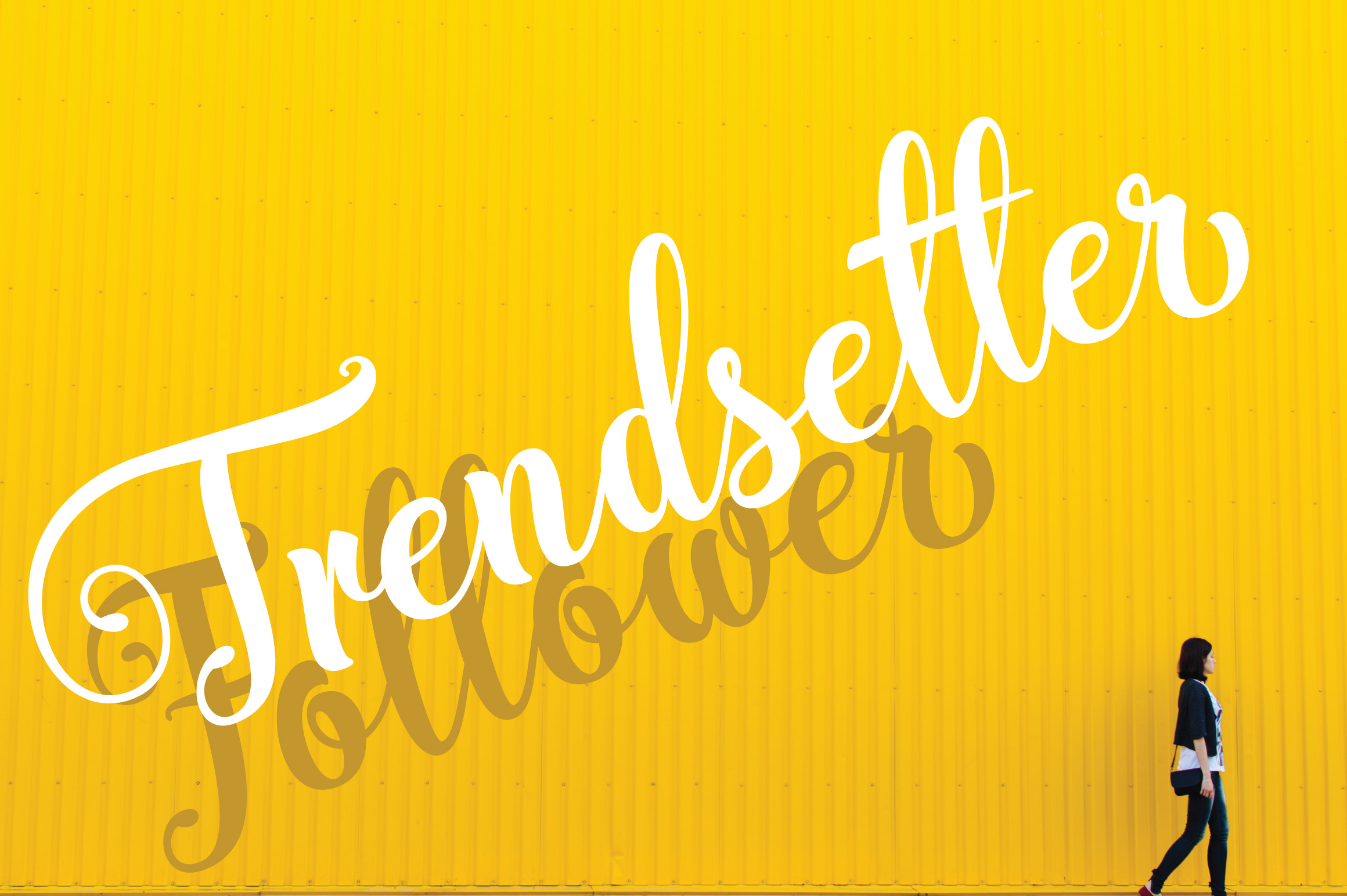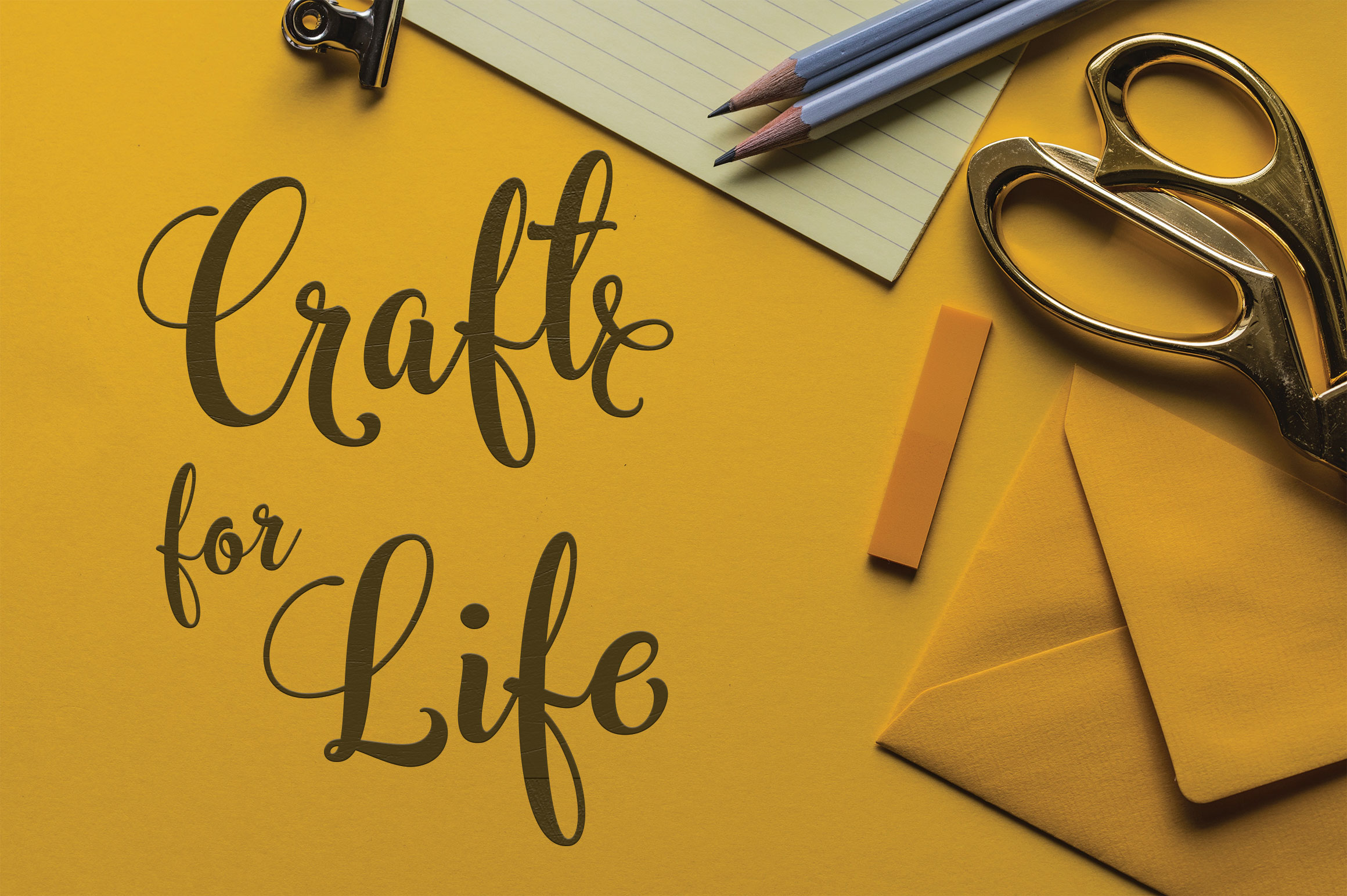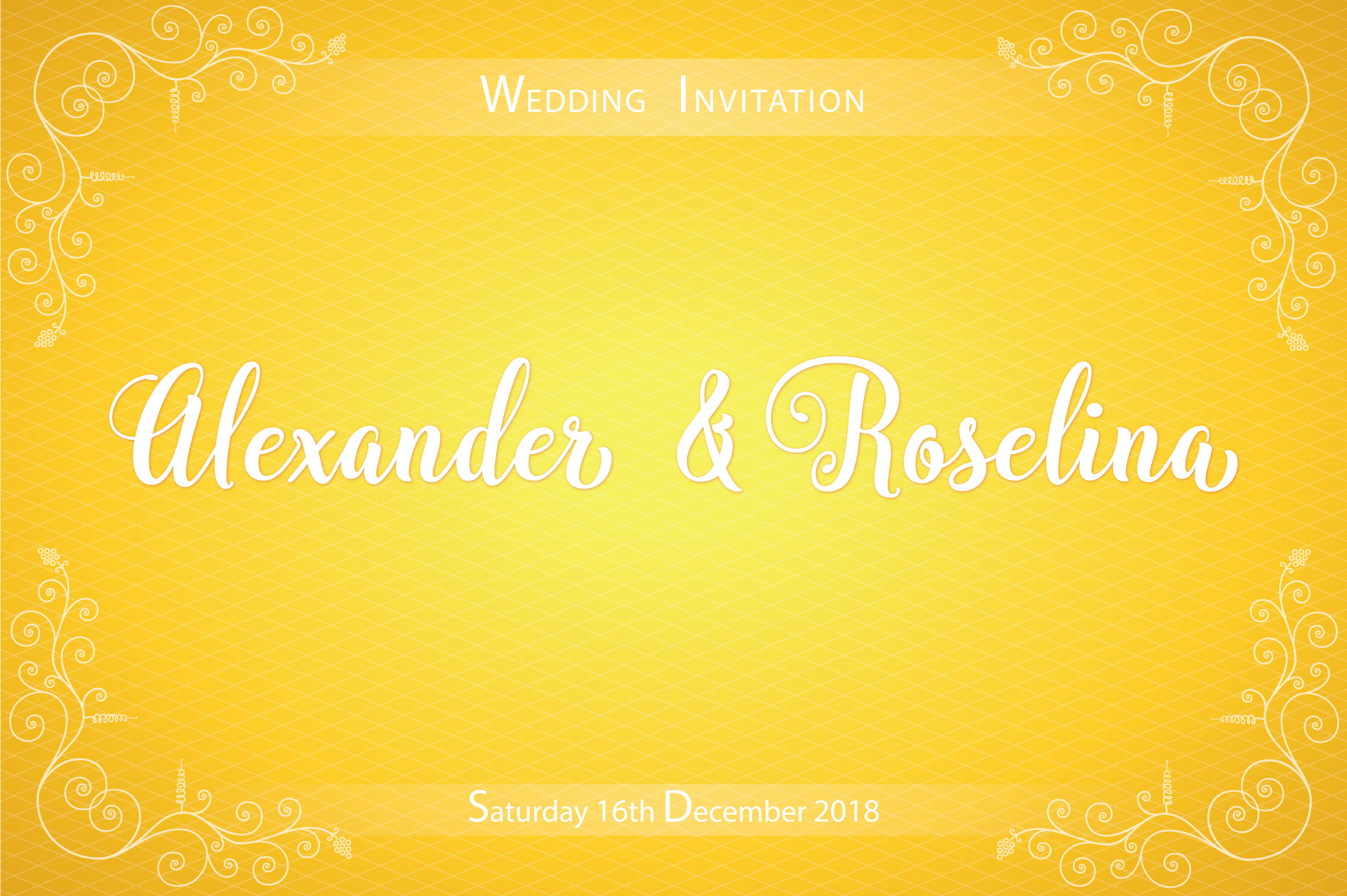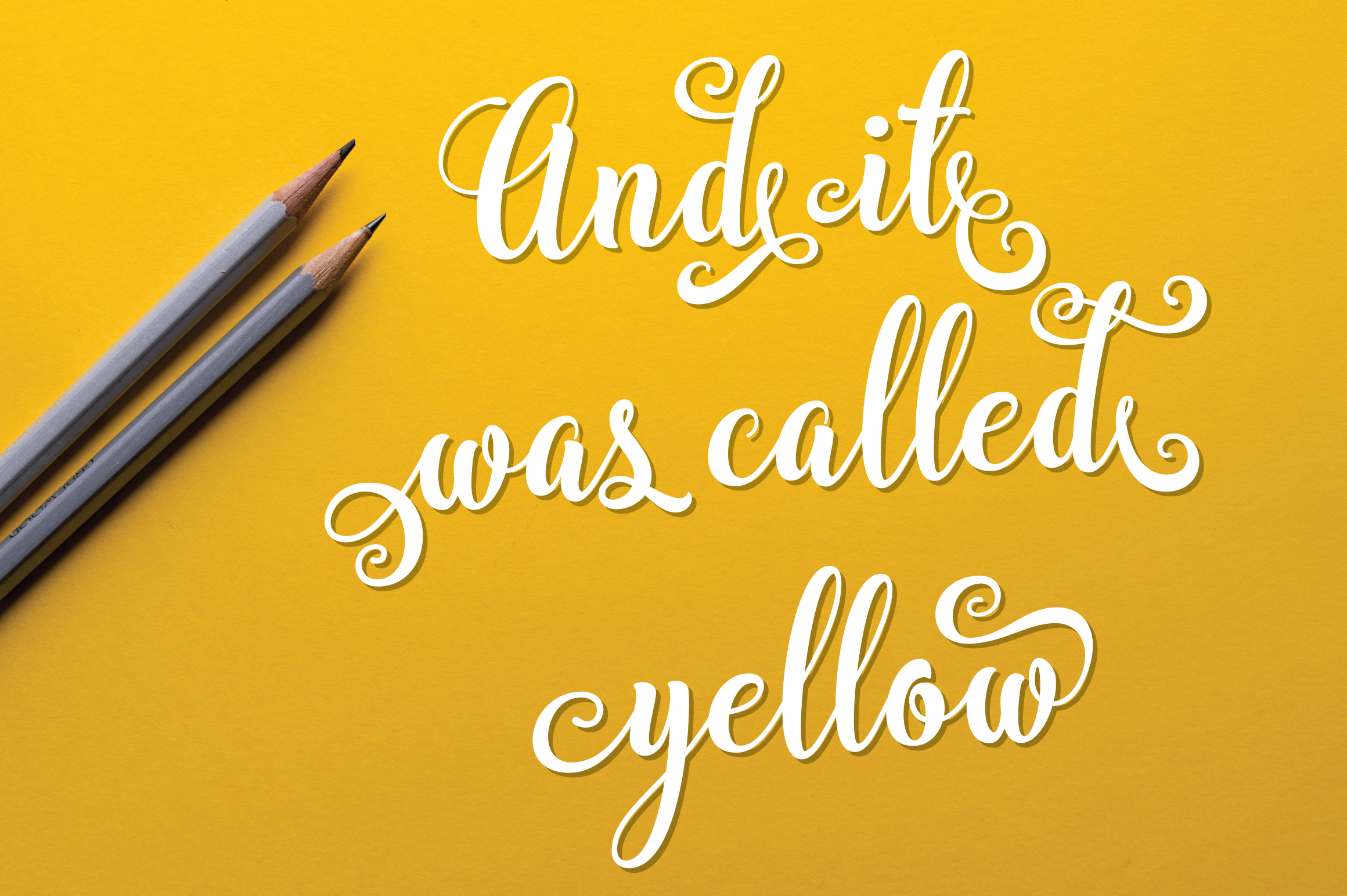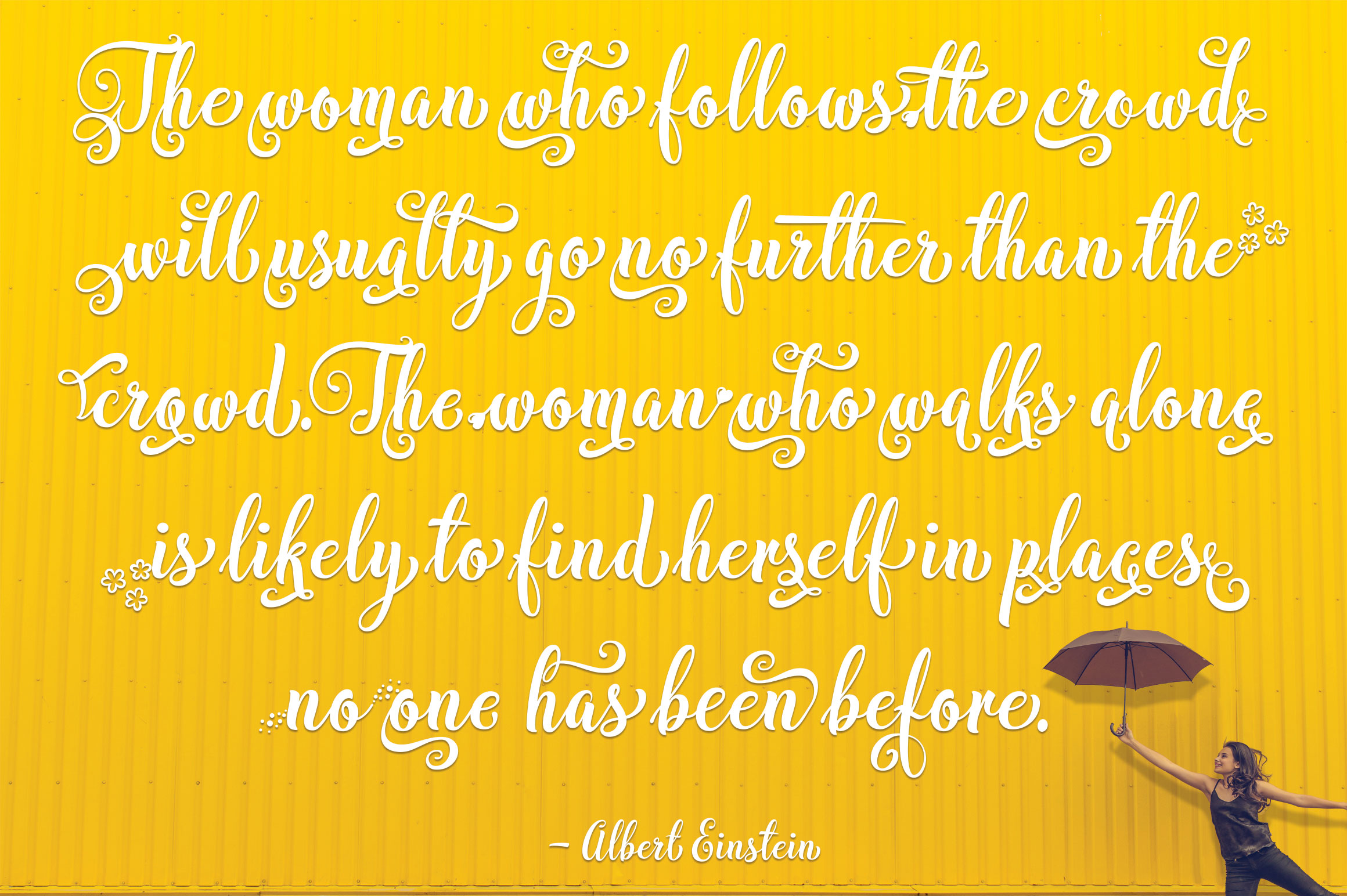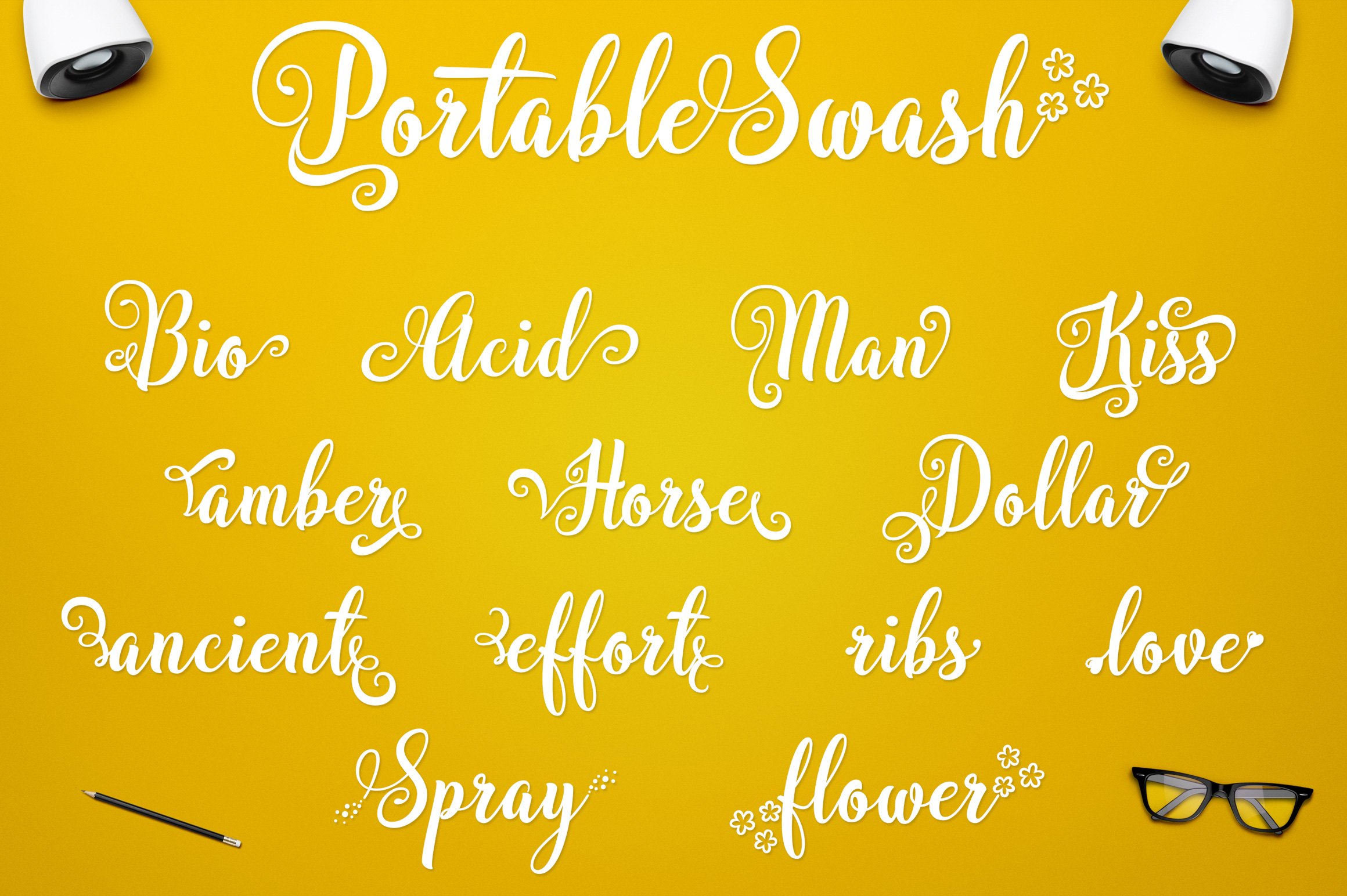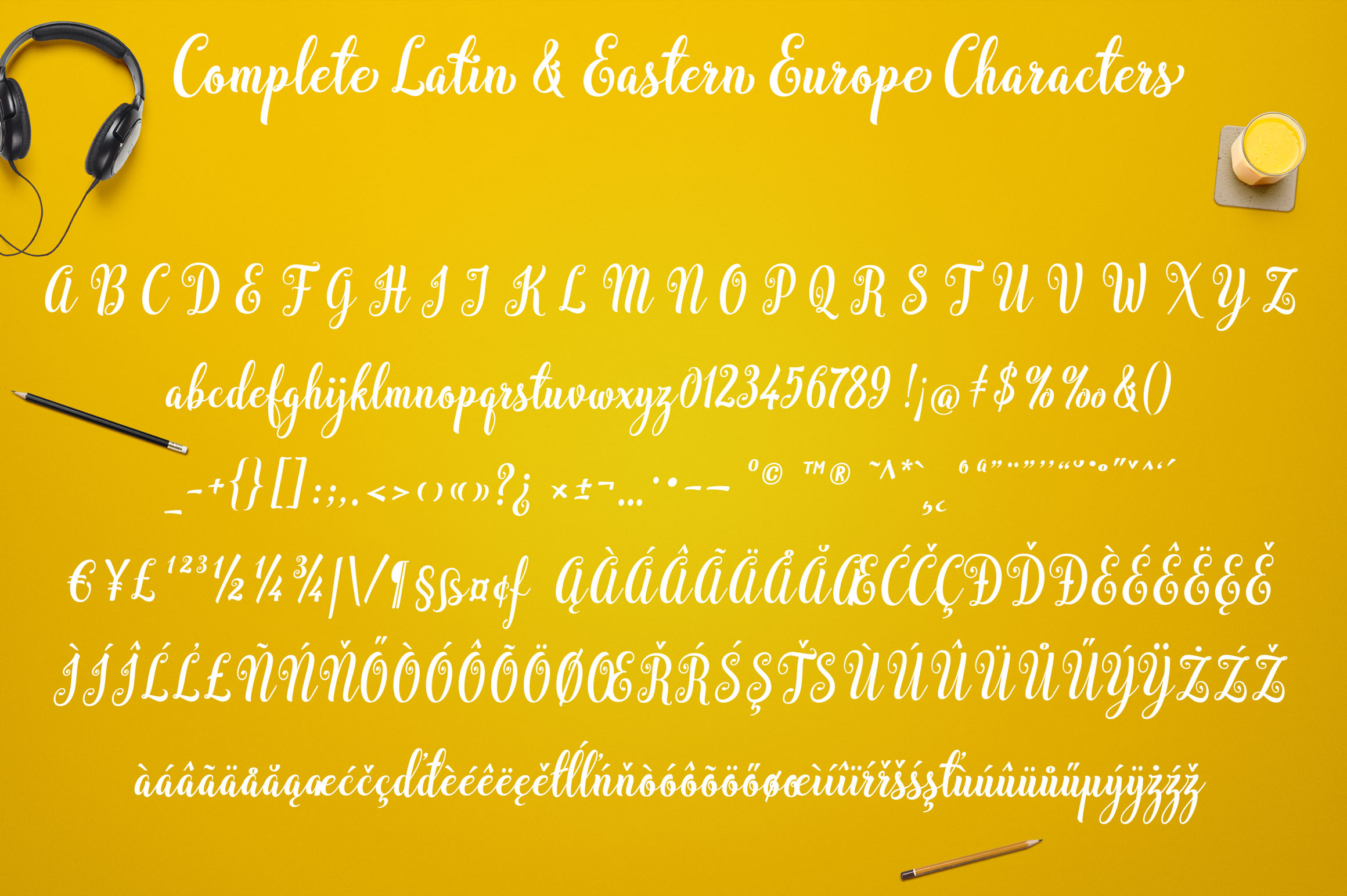
Bargain Script Font
The Bargain Script is a beautiful and bold script font. With a semibold weight and clean shape, this is a wonderful script to anchor your designs for title treatments, invitationals, and more.